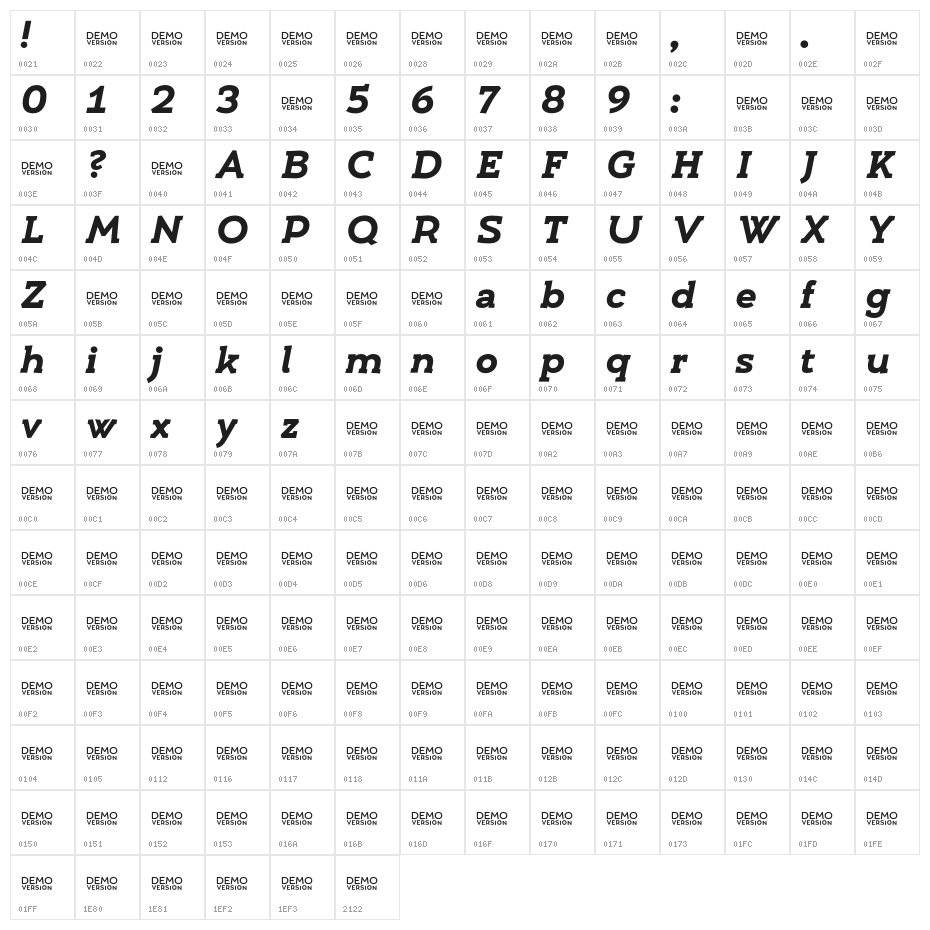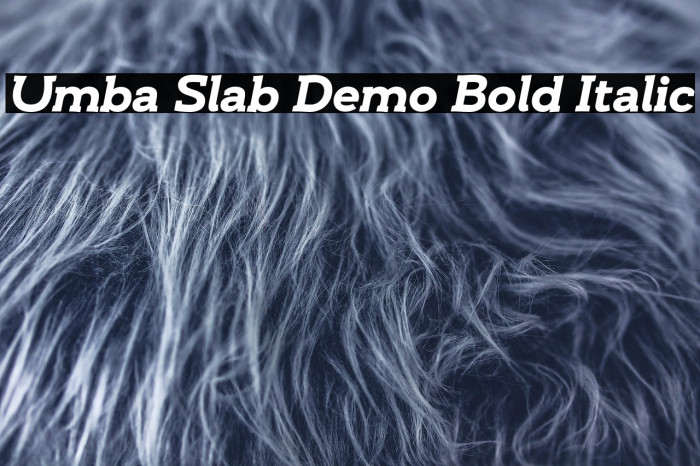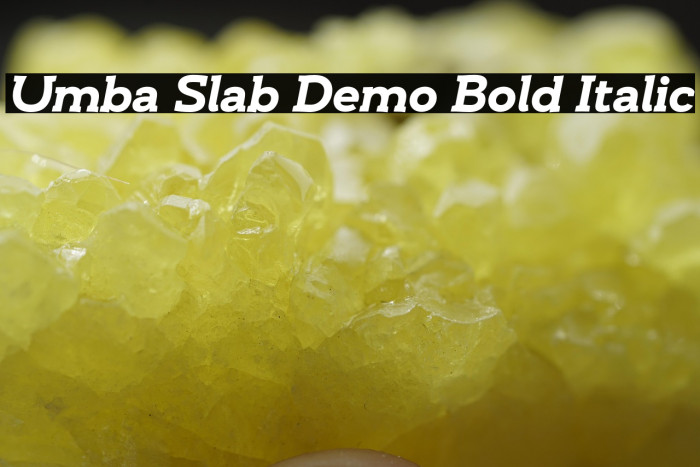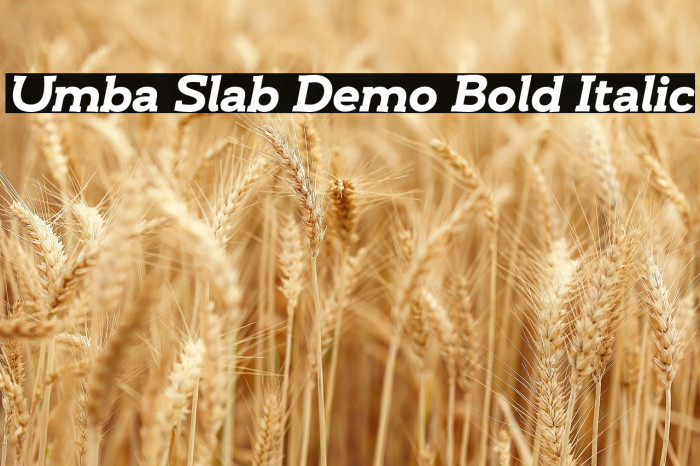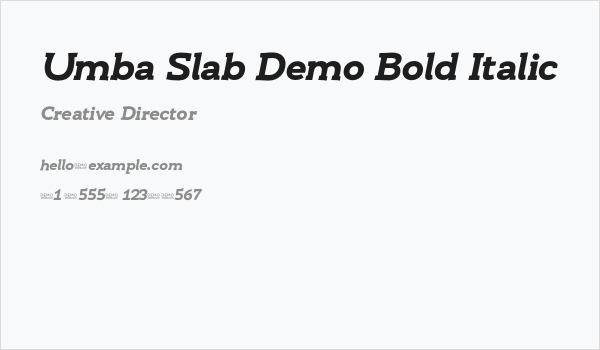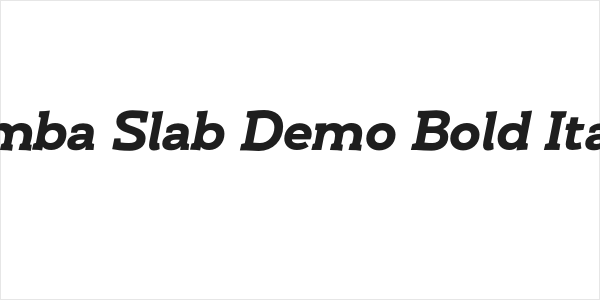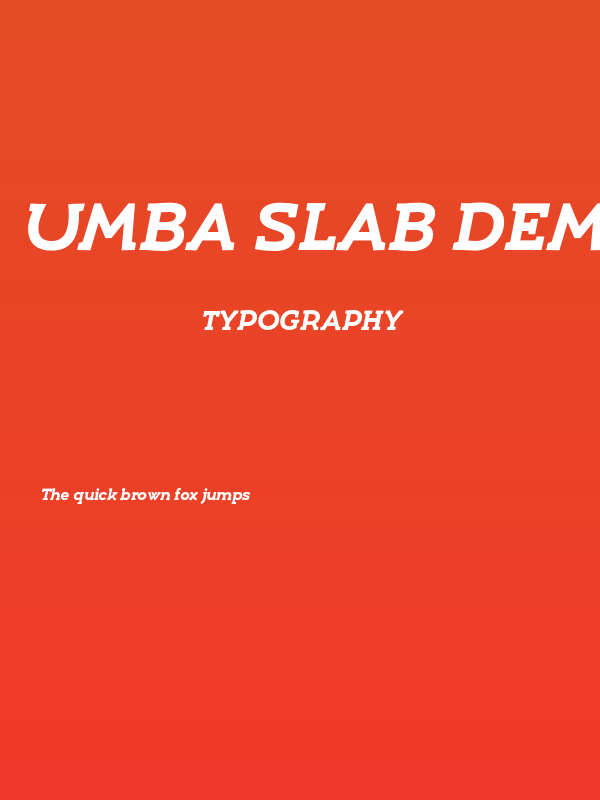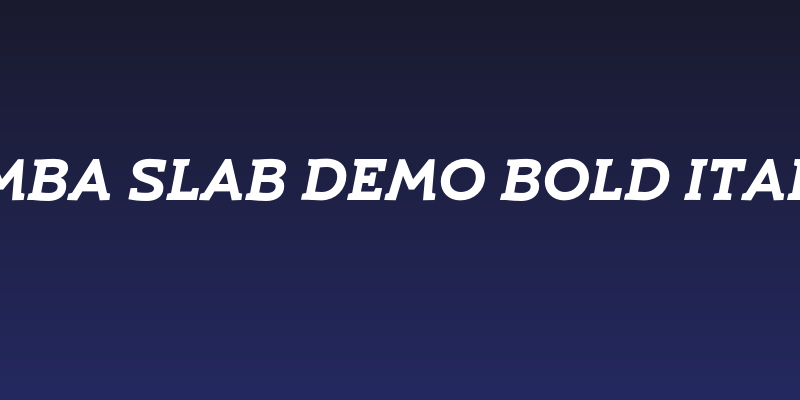
Umba Slab Demo Bold Italic Font
Umba Slab Demo Bold Italic Description
This font exhibits a bold and italicized style, characterized by strong, thick strokes and a slight slant that adds a dynamic feel. The letters are well-defined with a slab serif design, providing a robust and sturdy appearance. The uppercase and lowercase letters maintain a consistent weight, ensuring readability and impact. The numerals are equally bold, matching the overall aesthetic of the alphabet characters. Special characters are included, maintaining the same bold and italicized style, making this font versatile for various uses.
| Proposed Projects | Ideal for branding, headlines, posters, and any design requiring a strong, impactful typeface. |